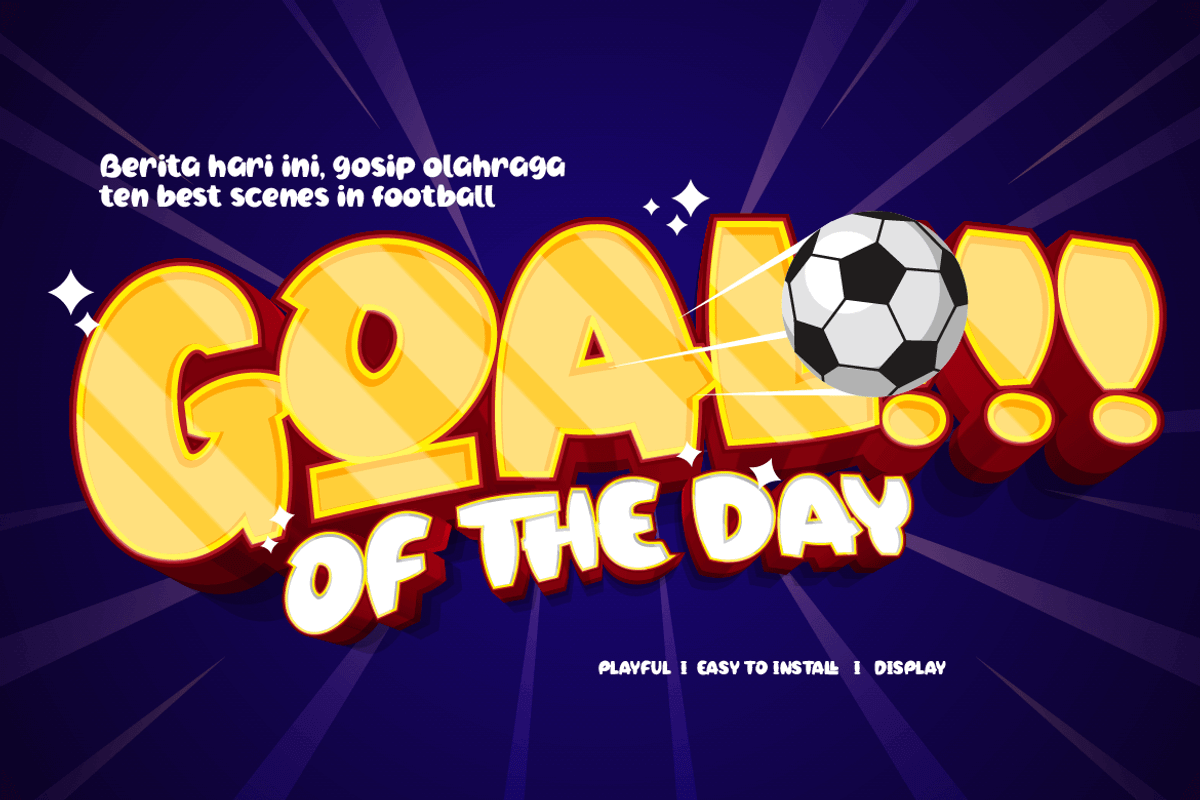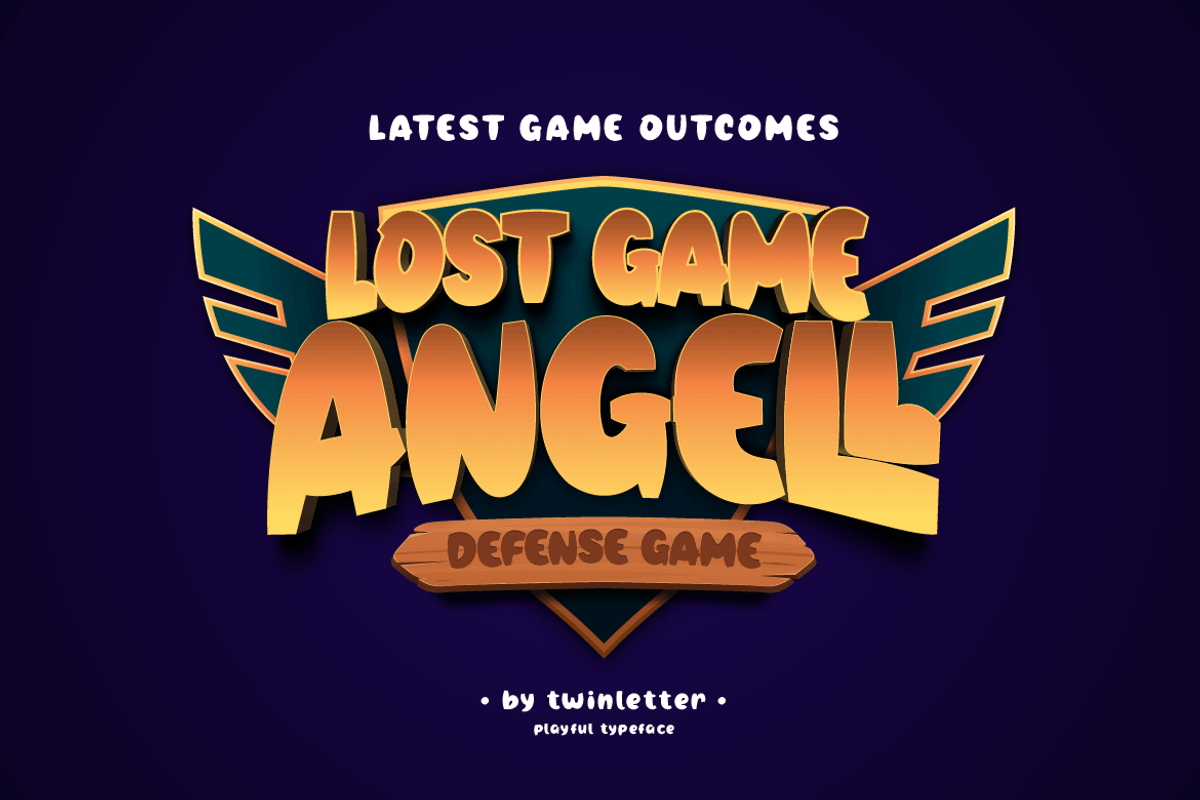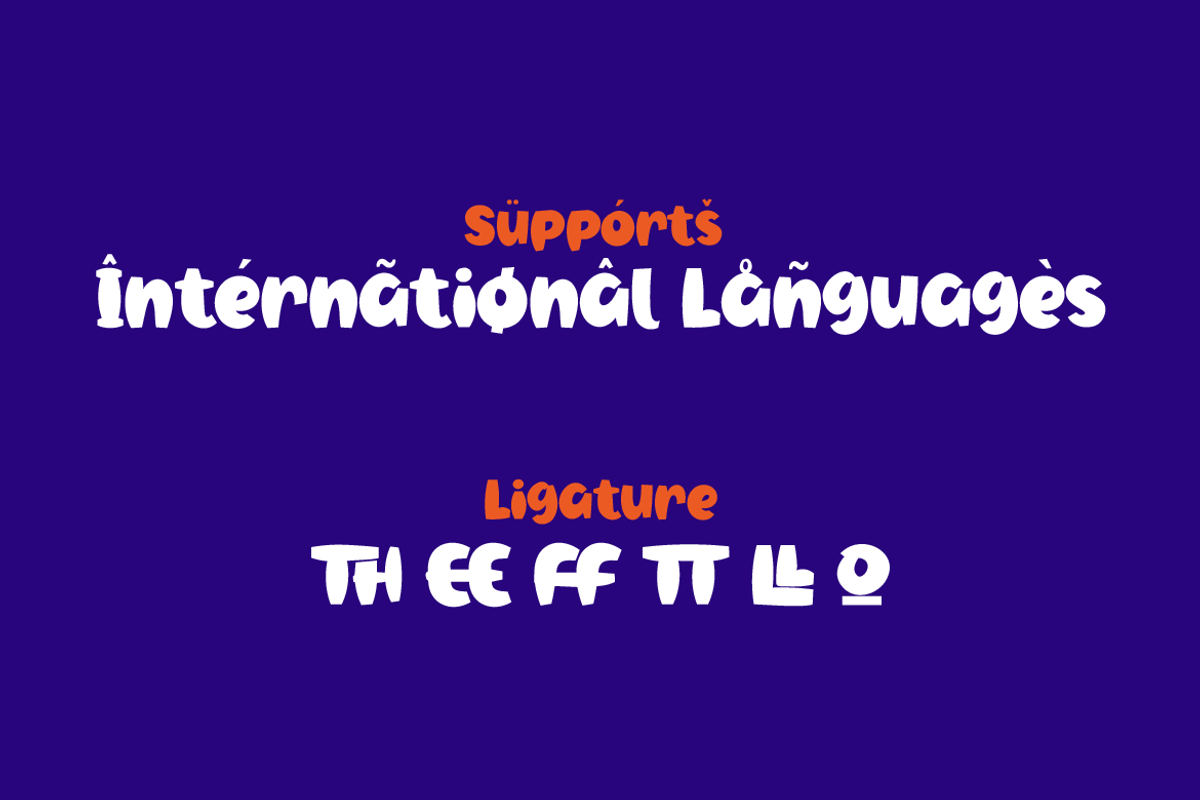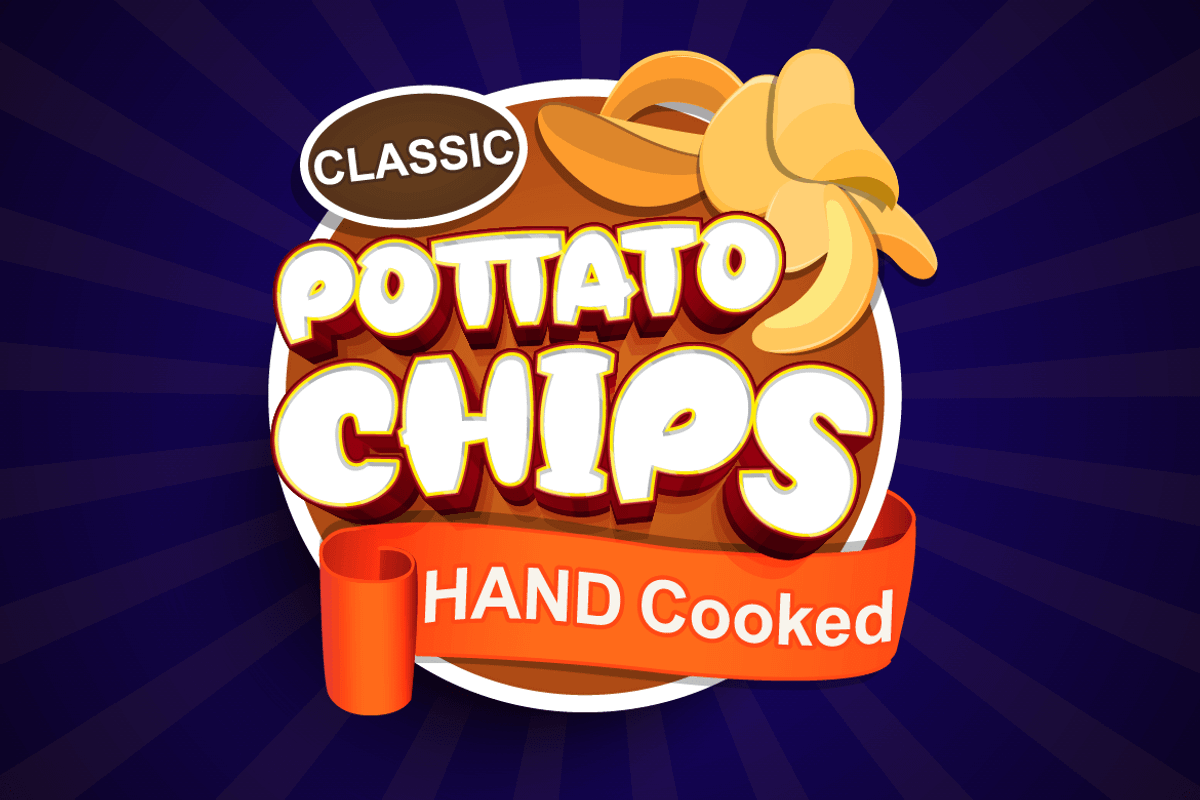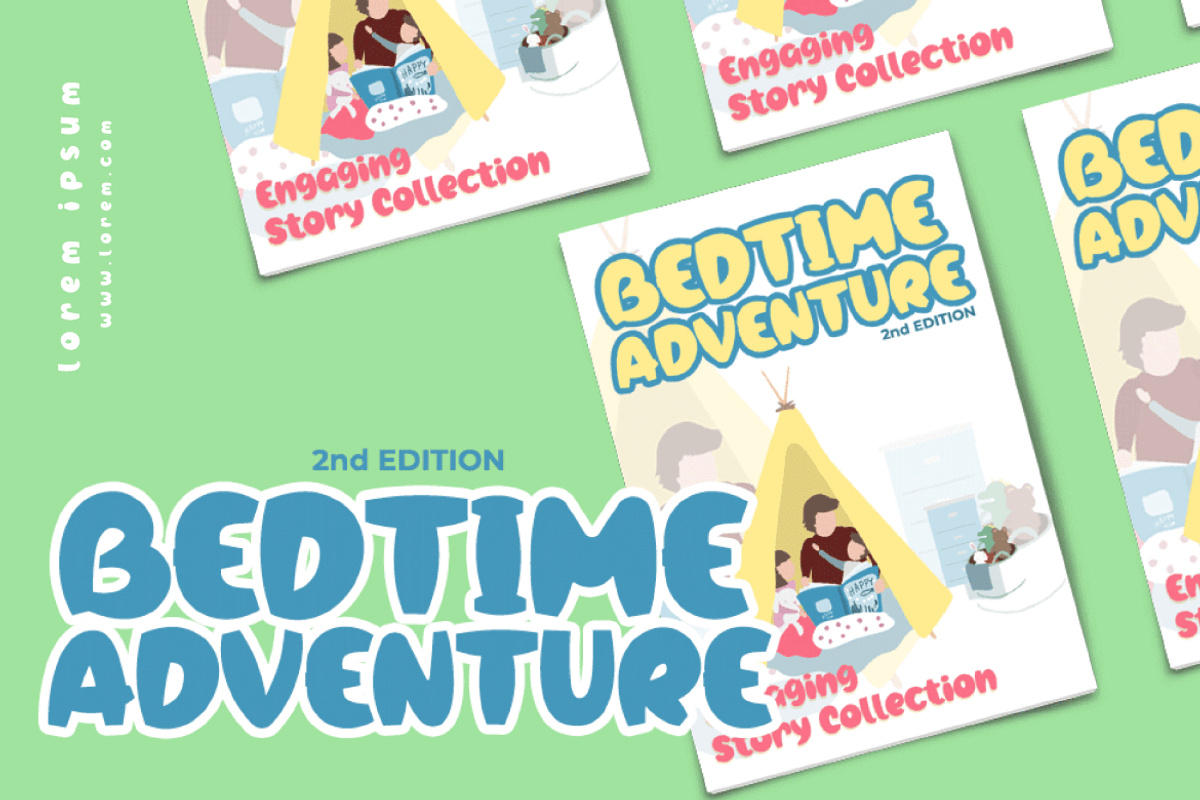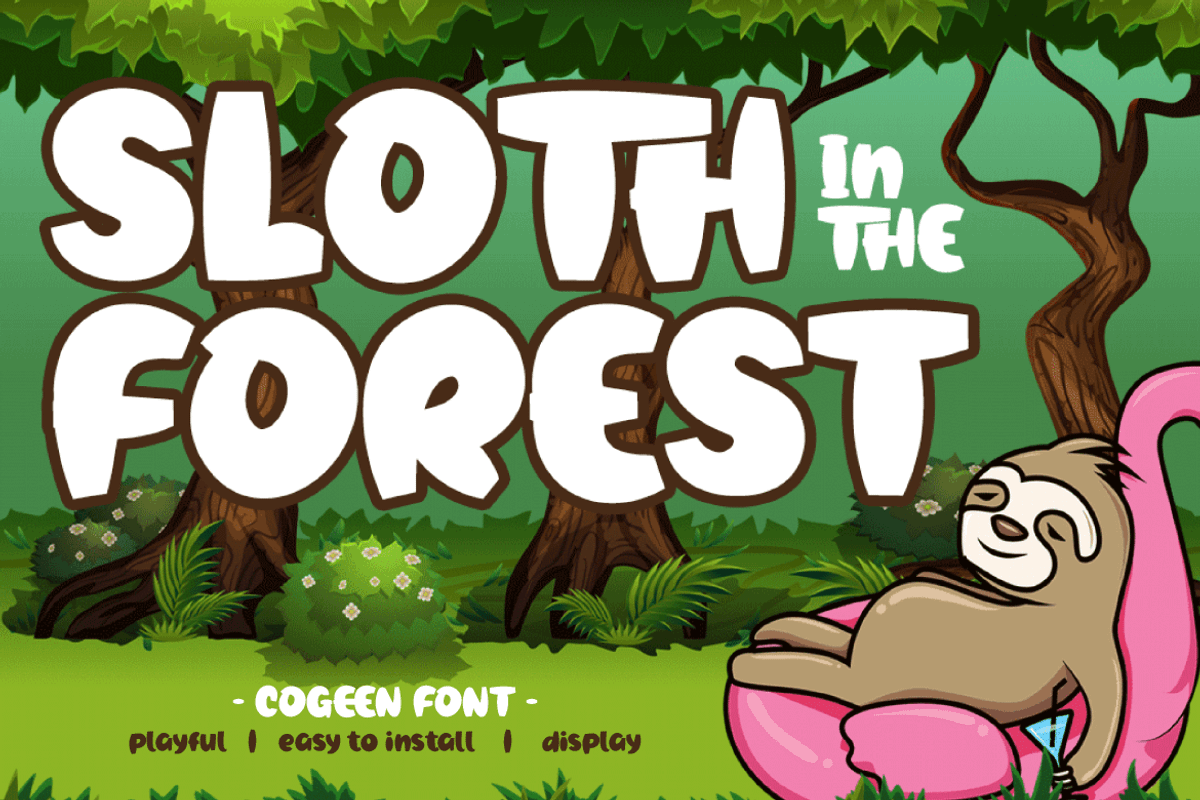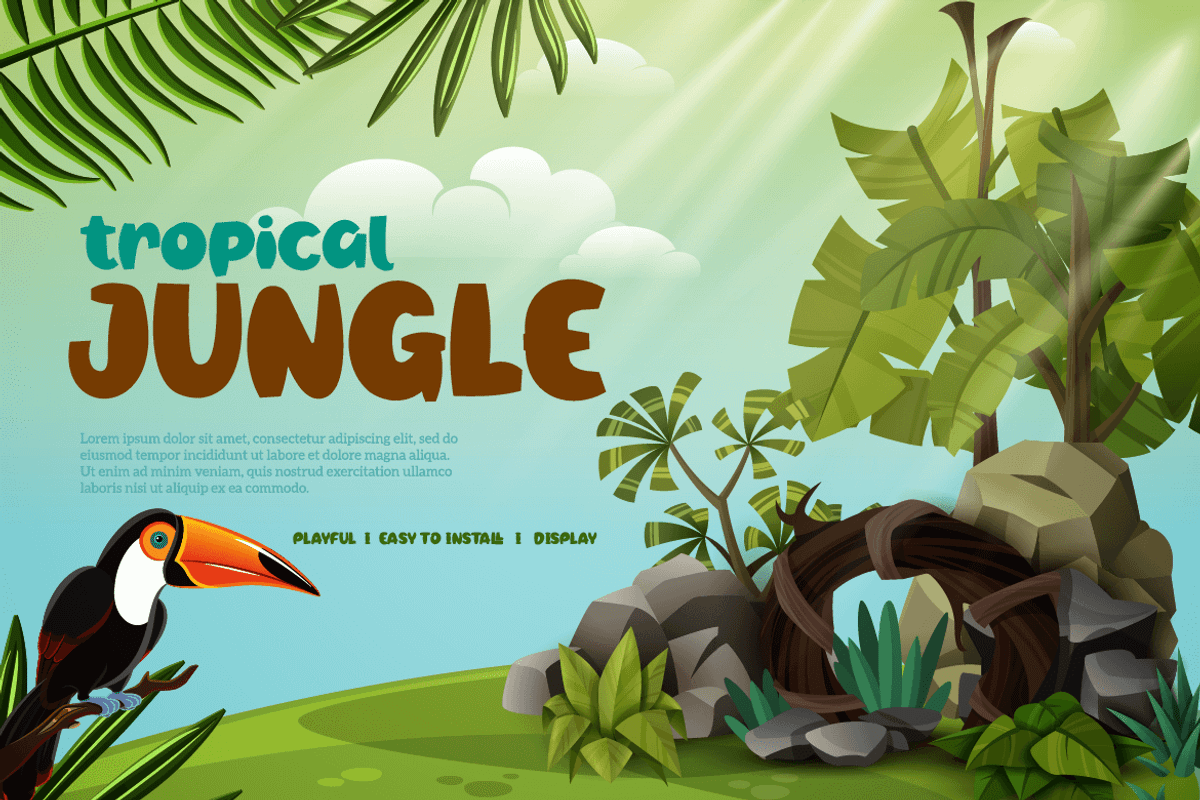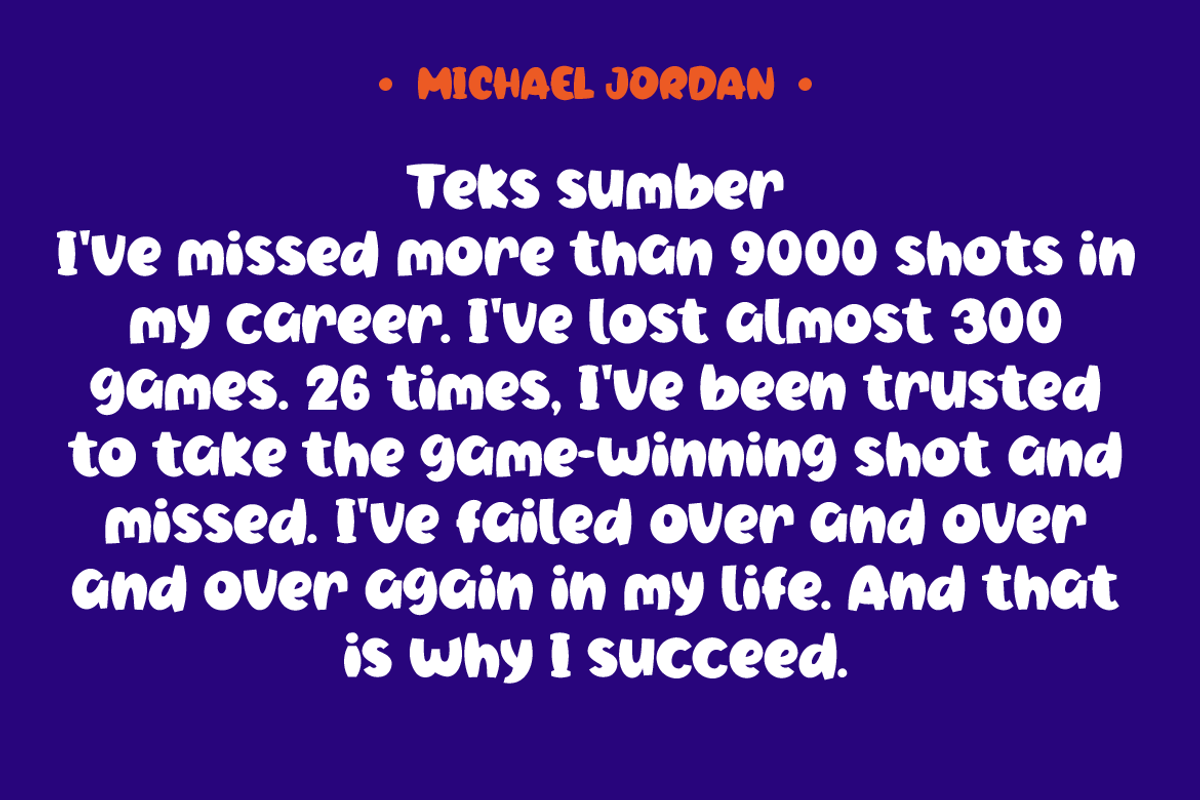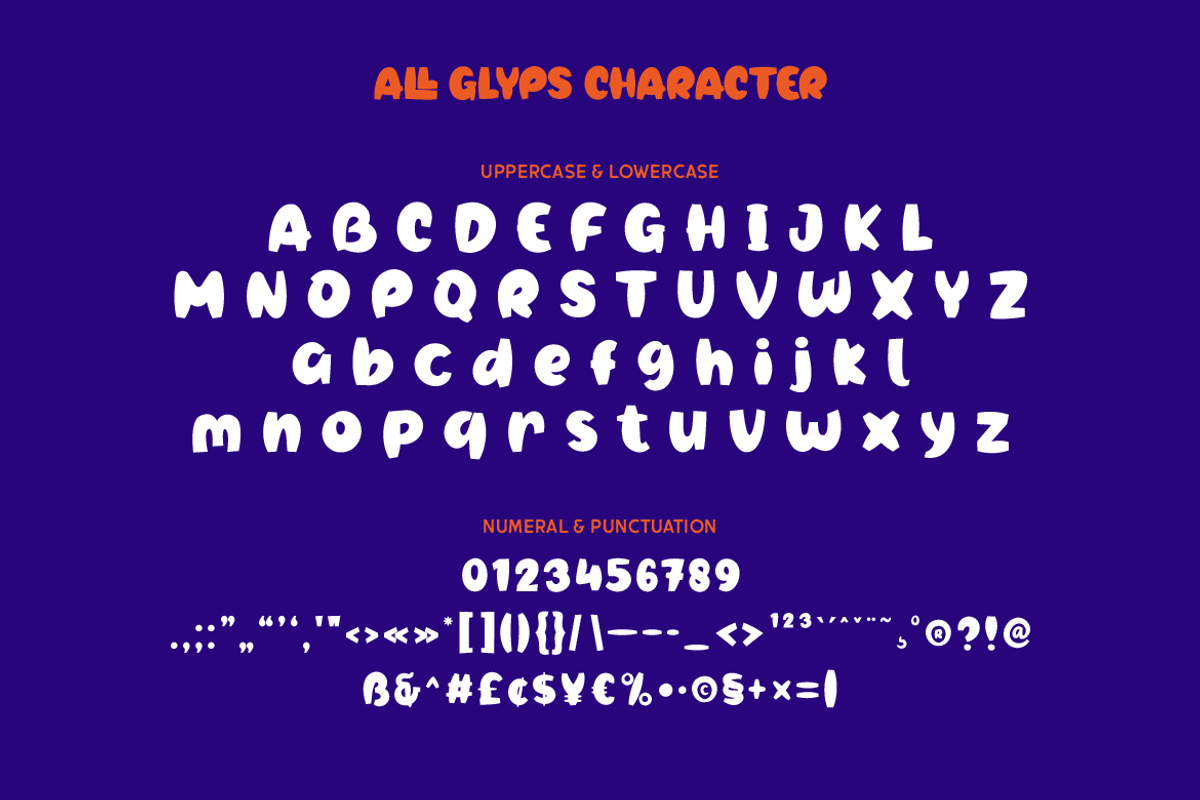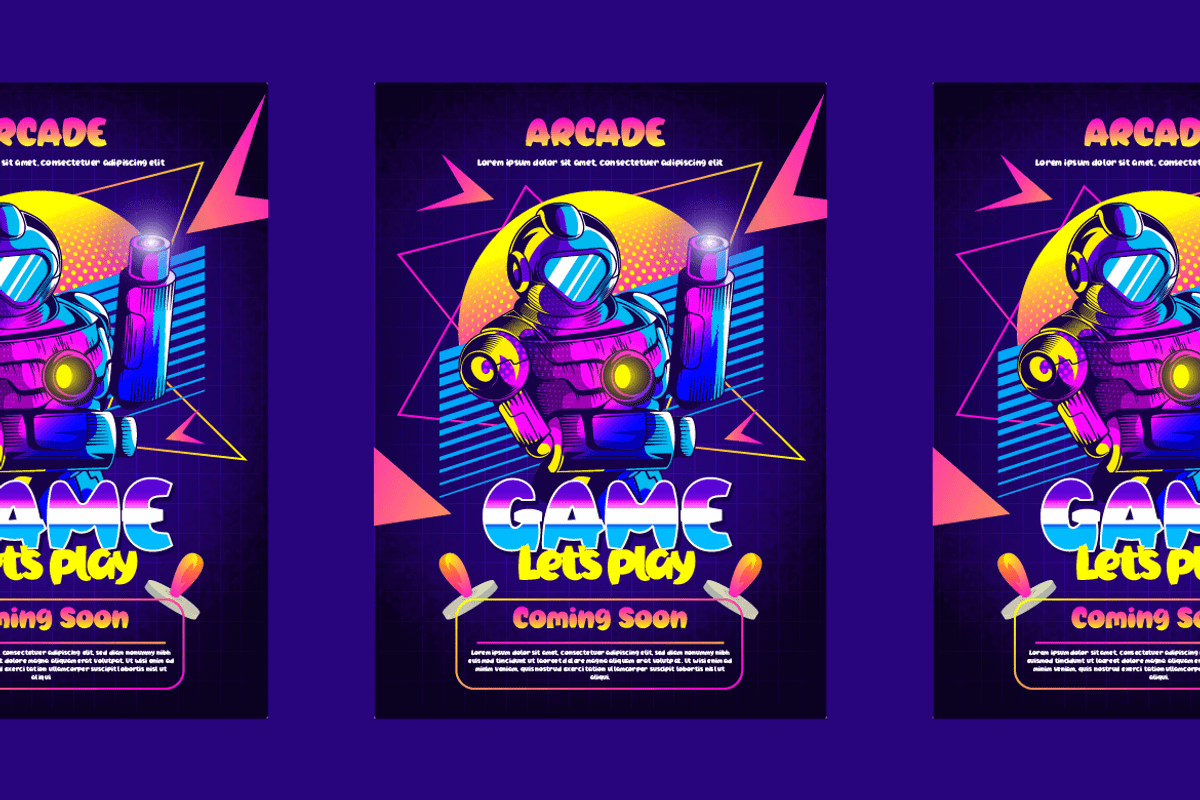
Cogeen
Cogeen is a fun display typeface that may be used for a variety of projects.
This typeface is meant to be as distinctive as possible in order to generate a unique and memorable impression, making your project appear powerful and charismatic.
Of course, this typeface is appropriate for a wide range of creative applications, including game covers, titles, book covers, outdoor events, posters, banners, promotional material, movie titles, YouTube covers and thumbnails, children’s games, cartoon projects, and other unique projects.